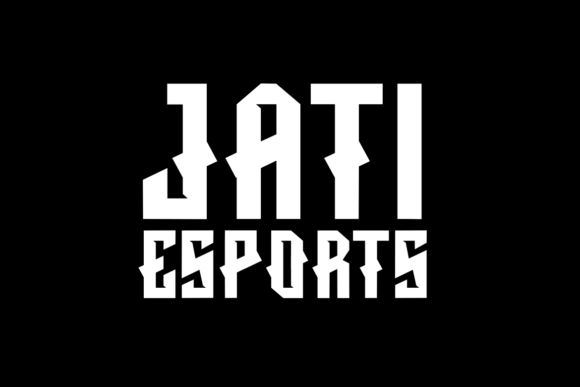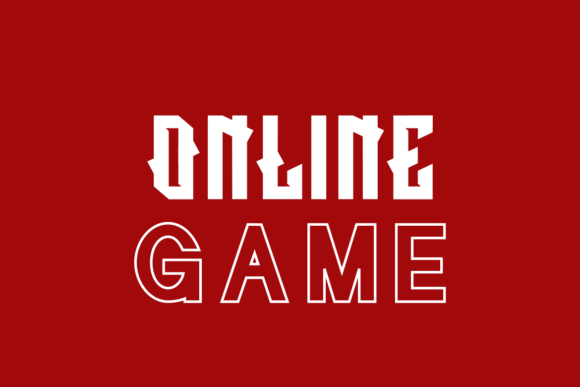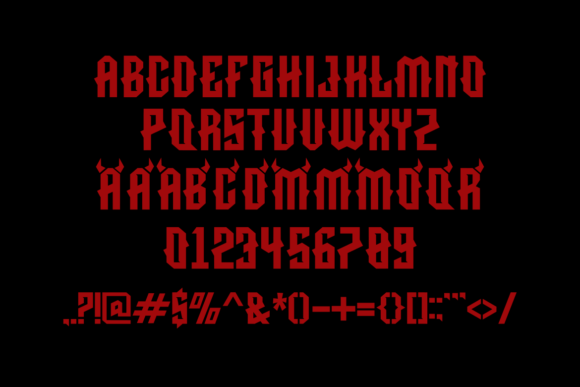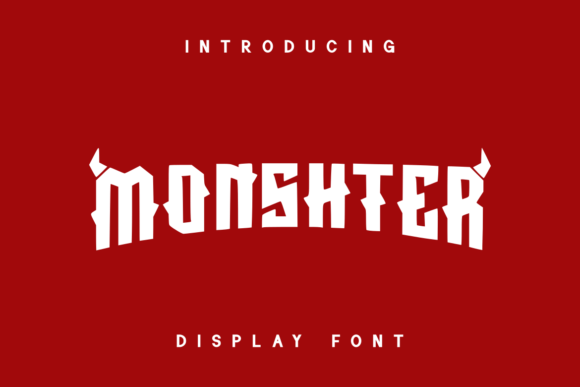
Introduction to Monshter Font
Monshter is a display font.
It features a unique style and it is perfect for social media posts, greeting cards, branding and much more .
Why Choose Monshter Font?
Monshter Font offers exceptional quality and versatility, making it a valuable addition to your design toolkit. Whether you’re creating for personal projects or commercial use, Monshter Font delivers professional results.